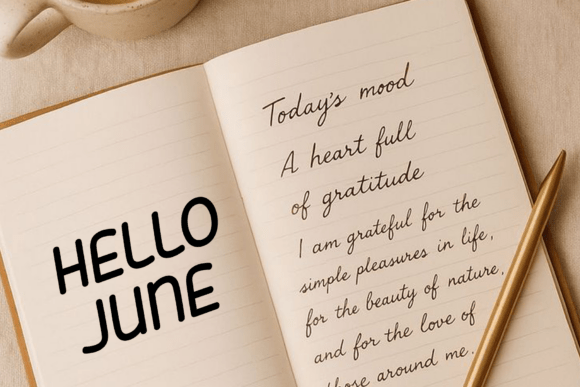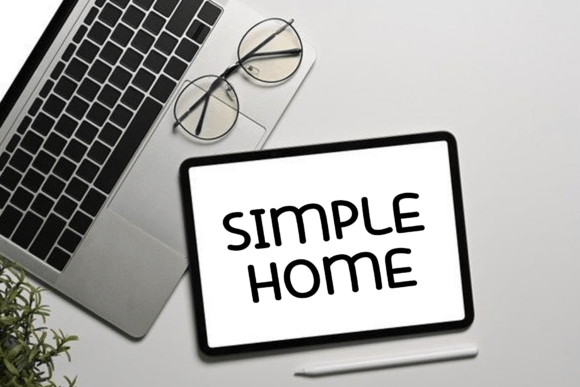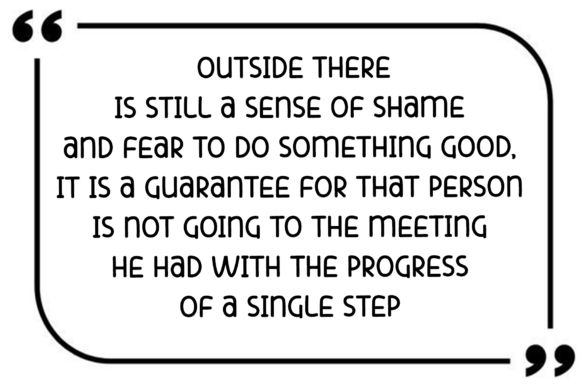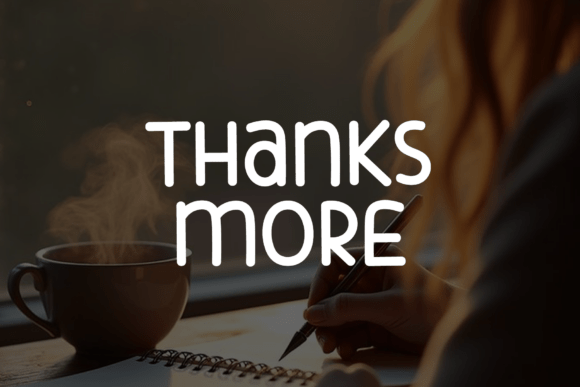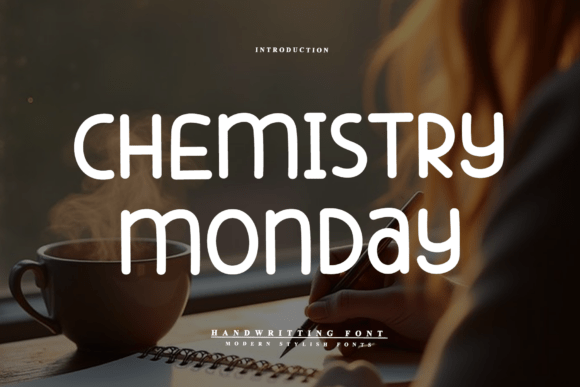
Chemistry Monday Font: Elevate Your Designs with a Timeless Sans-Serif Classic
Are you a designer or crafter looking for the perfect font to elevate your creative projects? Look no further than Chemistry Monday, a lovely and timeless sans-serif font that’s sure to make your designs shine. In this article, we’ll dive into the world of Chemistry Monday, exploring its unique features, benefits, and uses, and why it’s the best choice for creating eye-catching logos, branding, and quotes.
The Beauty of Chemistry Monday
Chemistry Monday is a beautifully crafted sans-serif font that exudes a sense of elegance and sophistication. Its clean lines, simple shapes, and classic proportions make it a versatile choice for a wide range of design projects. What sets Chemistry Monday apart, however, is its unique and beautiful touch. Every letter has been carefully crafted to bring a sense of personality and flair to your designs, making it perfect for creative types who want to add a touch of whimsy to their work.
Chemistry Monday is an excellent choice for creating eye-catching logos, branding, and quotes. Its clear and legible design makes it easy to read, even at small sizes, while its unique character ensures that your designs will stand out from the crowd. Whether you’re creating a logo for a new business, designing a social media graphic, or crafting a quote for a client’s office, Chemistry Monday is the perfect font to help you get the job done.
Why Designers and Crafters Love Chemistry Monday
So why do designers and crafters love Chemistry Monday? For starters, its versatility makes it a great choice for a wide range of projects. Whether you’re working on a professional design project or a personal craft, Chemistry Monday is easy to use and adaptable to any style or theme. Additionally, its unique character and beautiful touch add a level of personality and flair to your designs that’s hard to find with other fonts.
Benefits of Using Chemistry Monday
So what are the benefits of using Chemistry Monday in your designs? Here are just a few:
- Elegant and sophisticated design: Chemistry Monday’s clean lines and classic proportions make it a timeless choice for any design project.
- Unique and beautiful touch: Every letter has been carefully crafted to bring a sense of personality and flair to your designs.
- Versatile: Chemistry Monday is perfect for a wide range of design projects, from logos and branding to quotes and social media graphics.
- Easy to read: Chemistry Monday’s clear and legible design makes it easy to read, even at small sizes.
Tips for Using Chemistry Monday
So how can you get the most out of Chemistry Monday? Here are a few tips:
- Experiment with different sizes and styles: Chemistry Monday is versatile and can be used in a variety of sizes and styles, from small captions to large headlines.
- Pair with other fonts: Chemistry Monday pairs well with other fonts, so don’t be afraid to experiment with different combinations to find the perfect look for your design.
- Use for creative projects: Chemistry Monday is perfect for creative projects, such as crafting, scrapbooking, and DIY design.
In conclusion, Chemistry Monday is a lovely and timeless sans-serif font that’s perfect for designers and crafters looking to elevate their creative projects. Its unique and beautiful touch, elegant design, and versatility make it a great choice for a wide range of design projects, from logos and branding to quotes and social media graphics. Whether you’re a professional designer or a crafty DIY enthusiast, Chemistry Monday is sure to become a go-to font in your design arsenal.